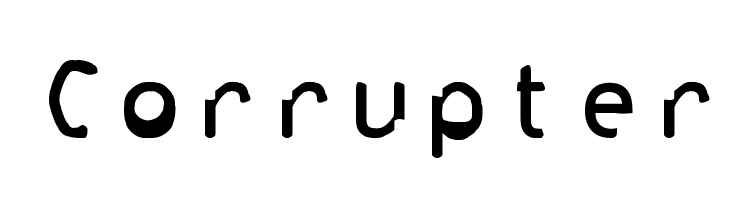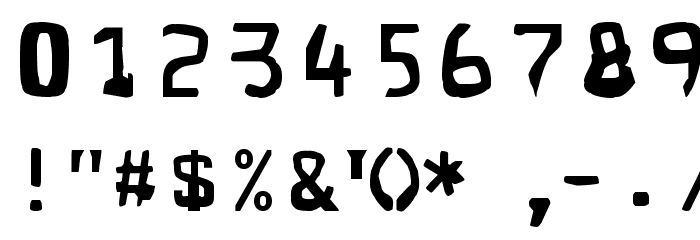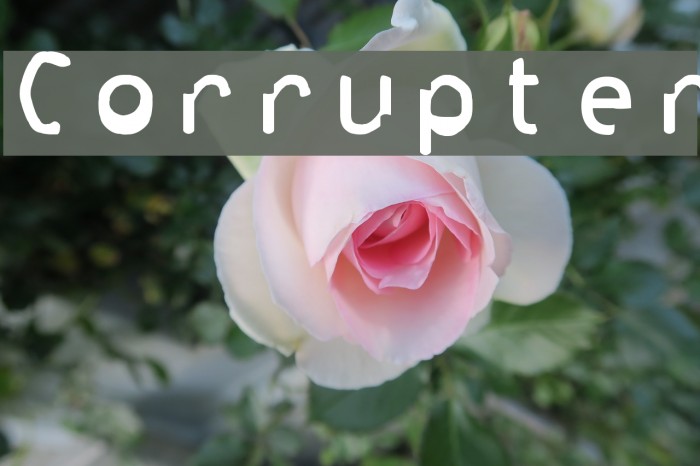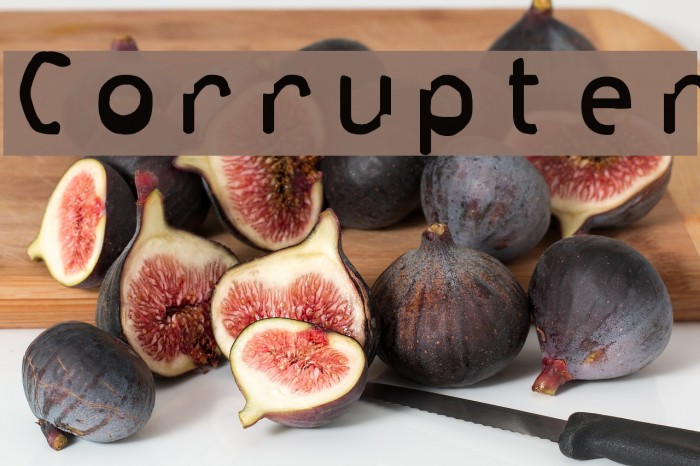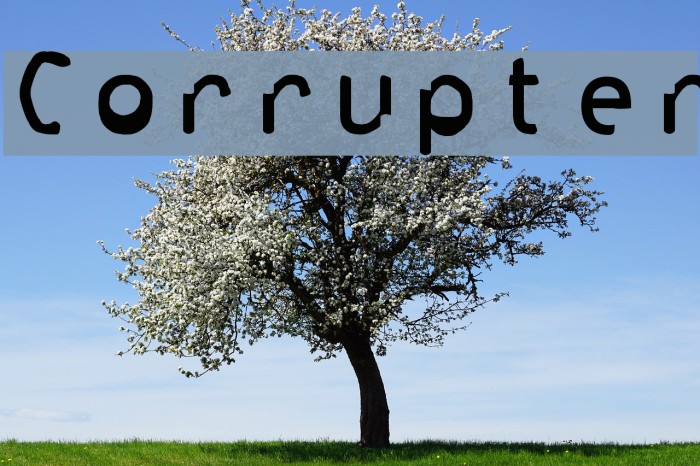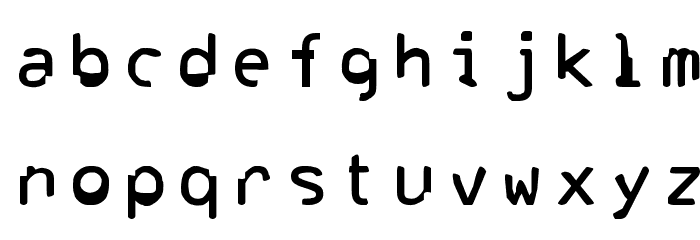
Corrupter Font
Corrupter Description
This font features a playful and slightly distorted style, giving it a unique and quirky appearance. The characters are irregular, with varying stroke thickness and slight tilts, creating a sense of movement and energy. The uppercase letters are bold and prominent, while the lowercase letters maintain a consistent style with a touch of whimsy. The numerals are distinct and easy to read, with a similar playful distortion. Special characters are creatively designed, adding to the font's overall charm. This font is perfect for projects that require a fun and unconventional look.
| Proposed Projects | Ideal for children's books, creative posters, playful branding, and unique invitations. |